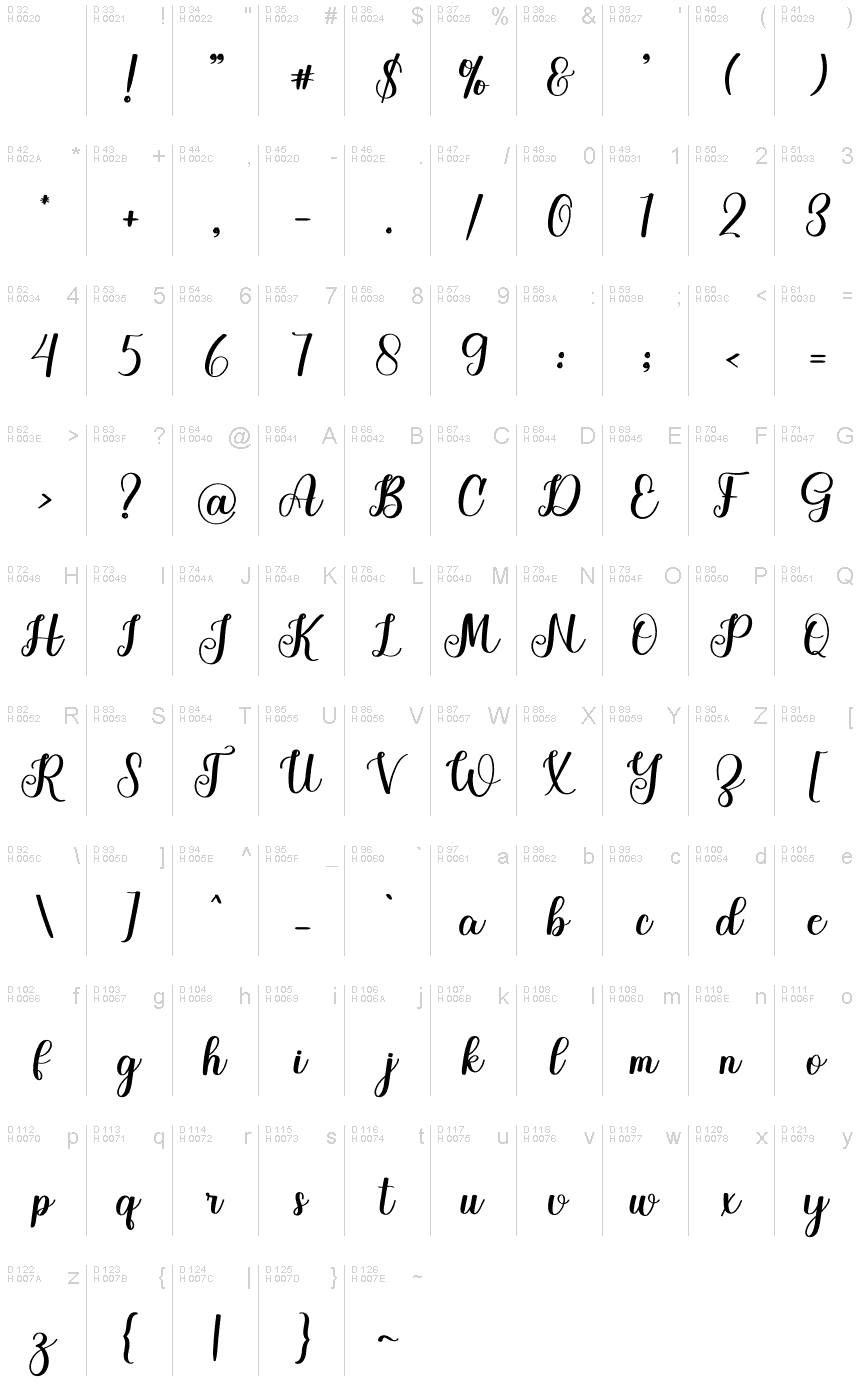
Gishella
Gishella, a mesmerizing calligraphy font by FreshtypeINK, exudes elegance and grace with its semi-light weight. Perfectly suited for wedding invitations, greeting cards, and stylish branding projects, this font adds a touch of sophistication to any design. With its delicate strokes and flowing curves, Gishella captures attention effortlessly. Whether crafting luxurious event signage or creating captivating social media posts, this versatile typeface brings a timeless charm to your projects. Elevate your designs with Gishella's enchanting calligraphy style and make a lasting impression on your audience.